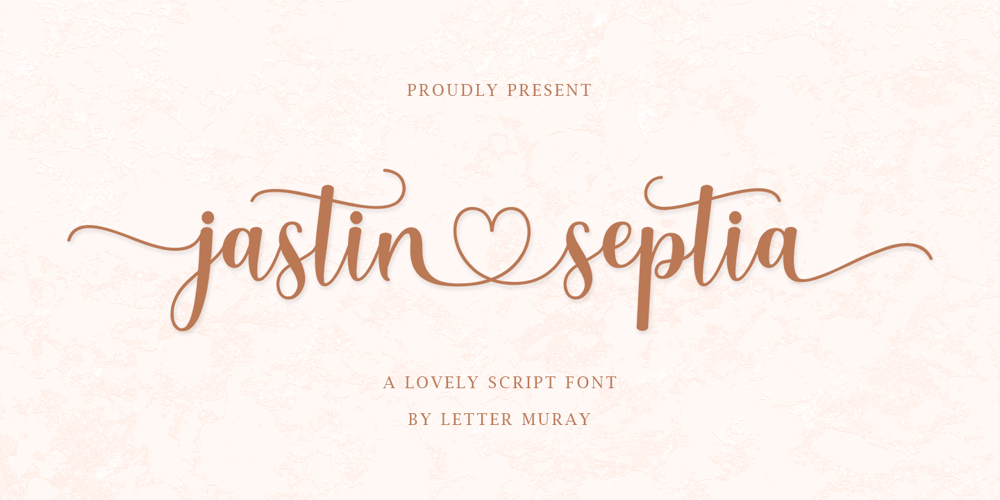
Jastin Septia Font Family was designed by Muji Bullah and published by Letter Muray. Jastin Septia contains 1 styles and family package options. Jastin Septia feels equally charming and elegant. It looks lovely on wedding invitations, thank you cards, quotes, greeting cards, logos, business cards, and every other design which needs a handwritten touch.This font is PUA encoded which means you can access all of the glyphs and swashes with ease!